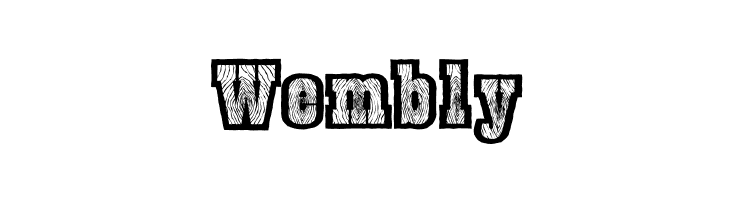
Young Frankenstein Regular Font
- Font: Young Frankenstein Regular
A playful, hand-drawn font with a cartoonish style and rounded, irregular letters.